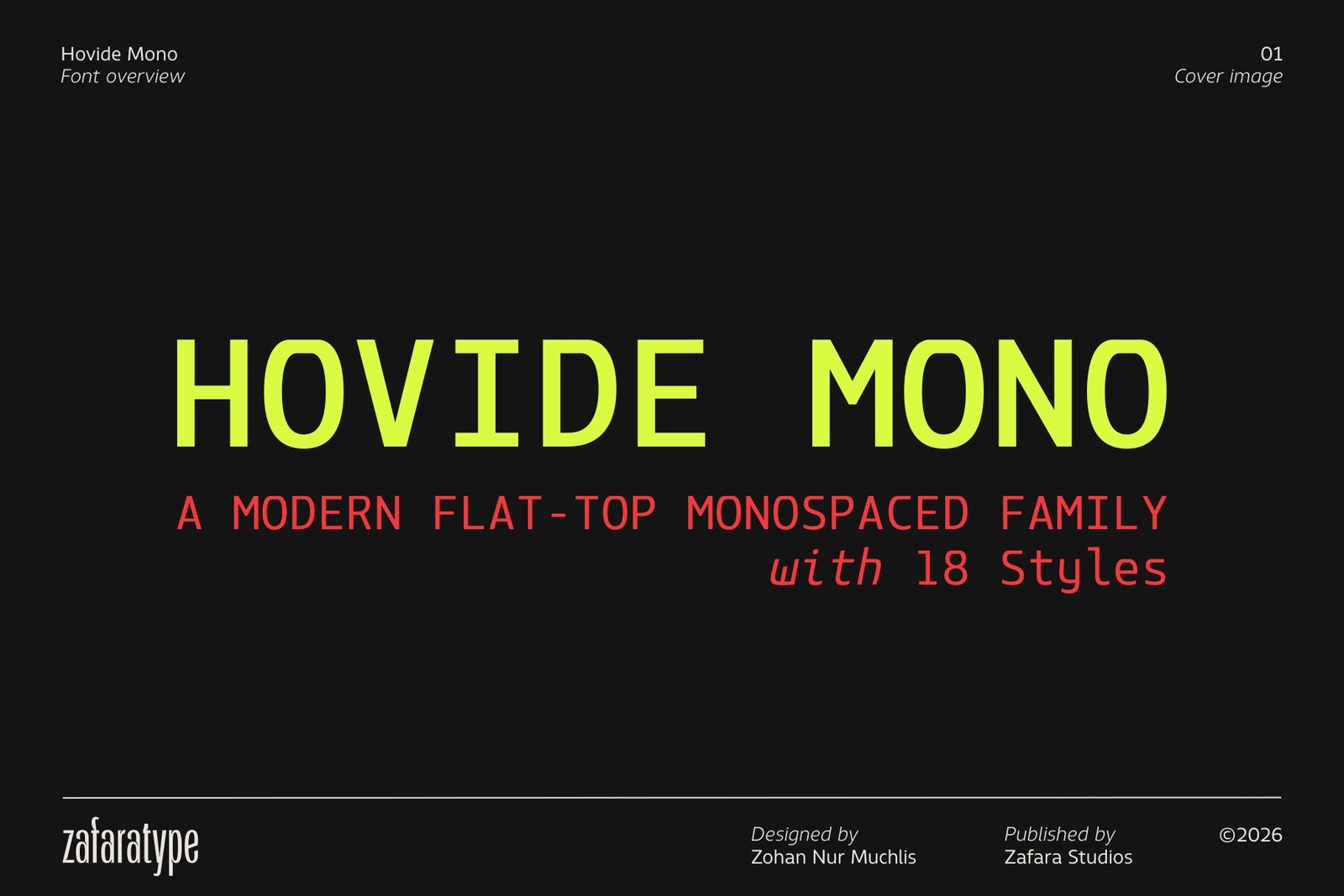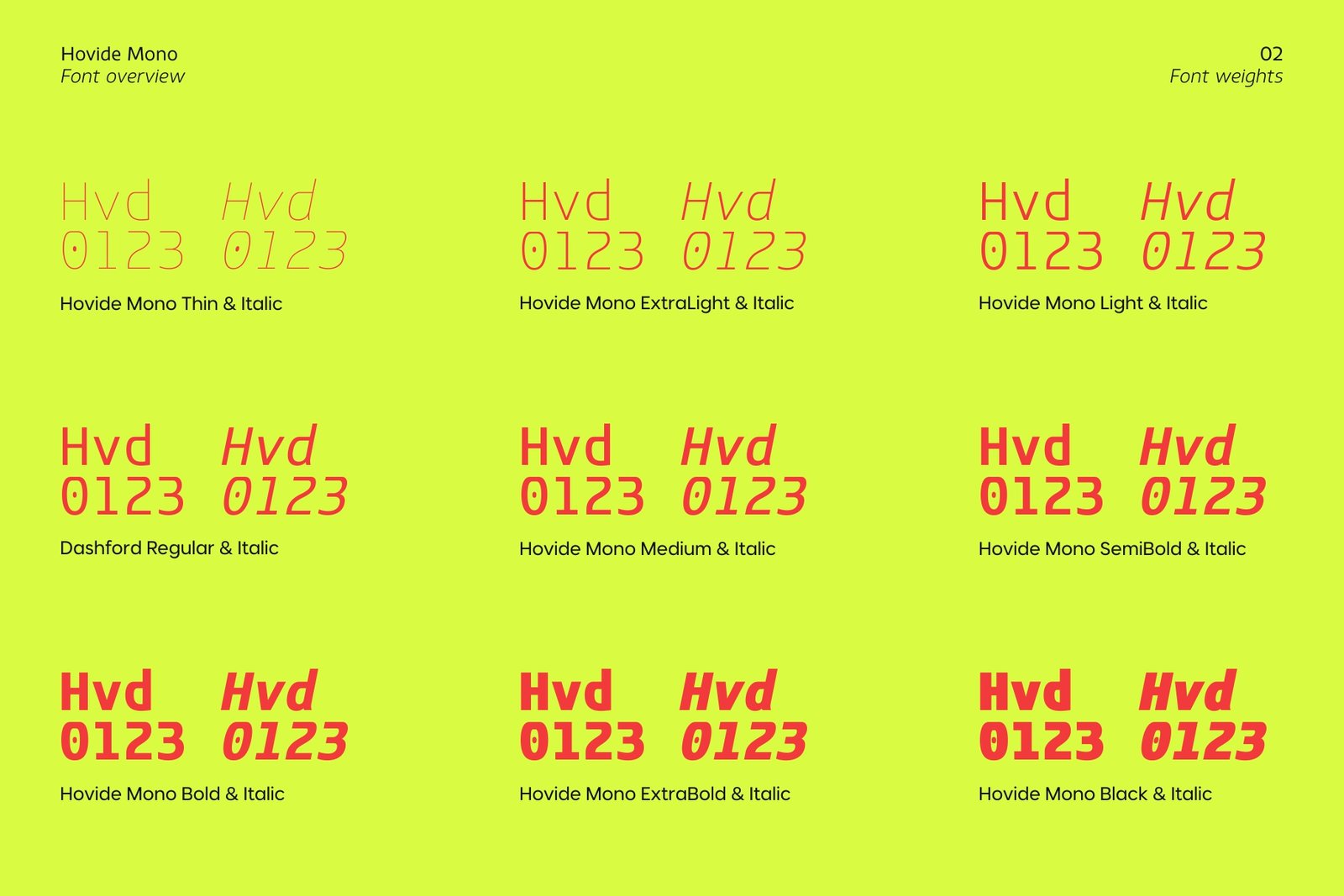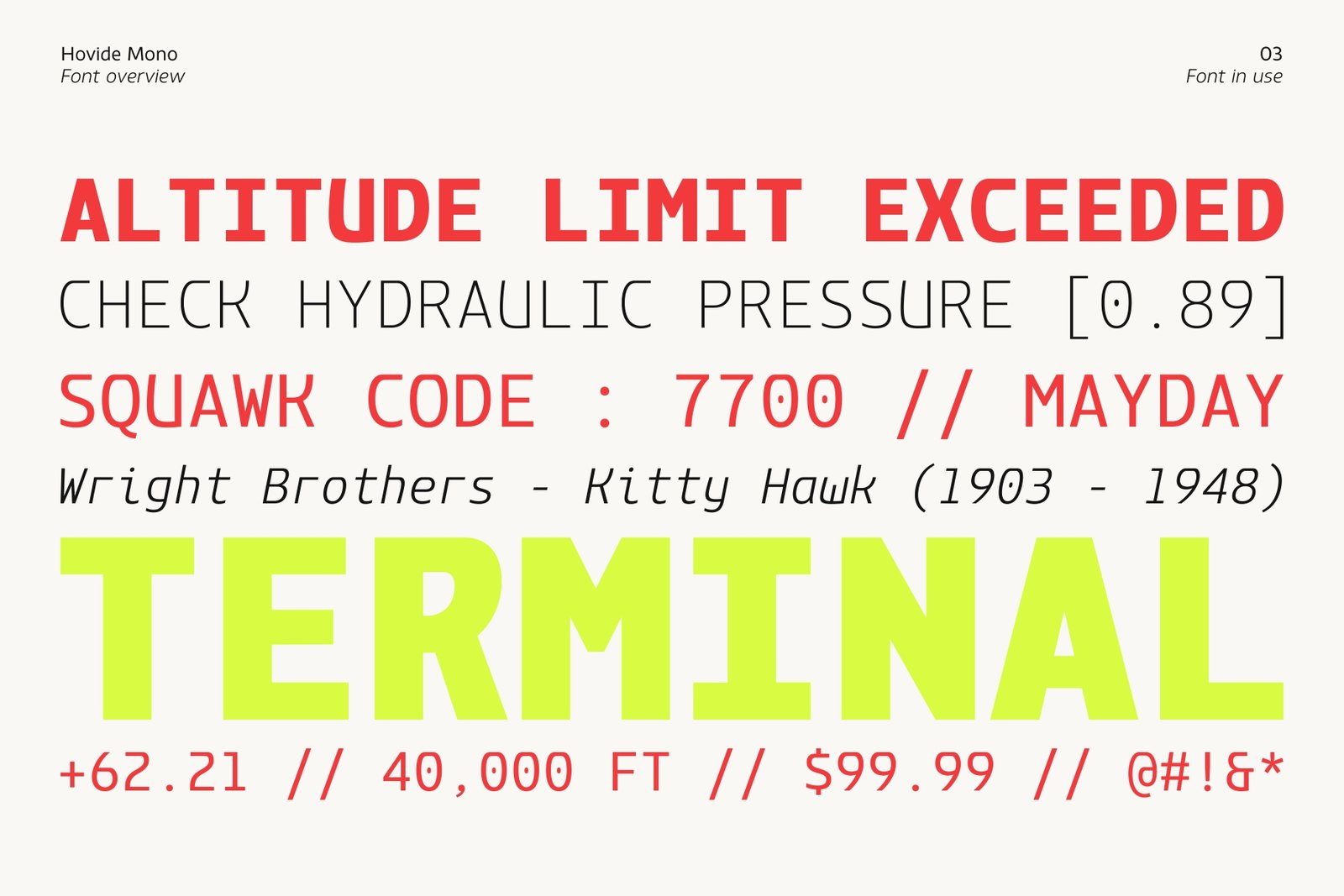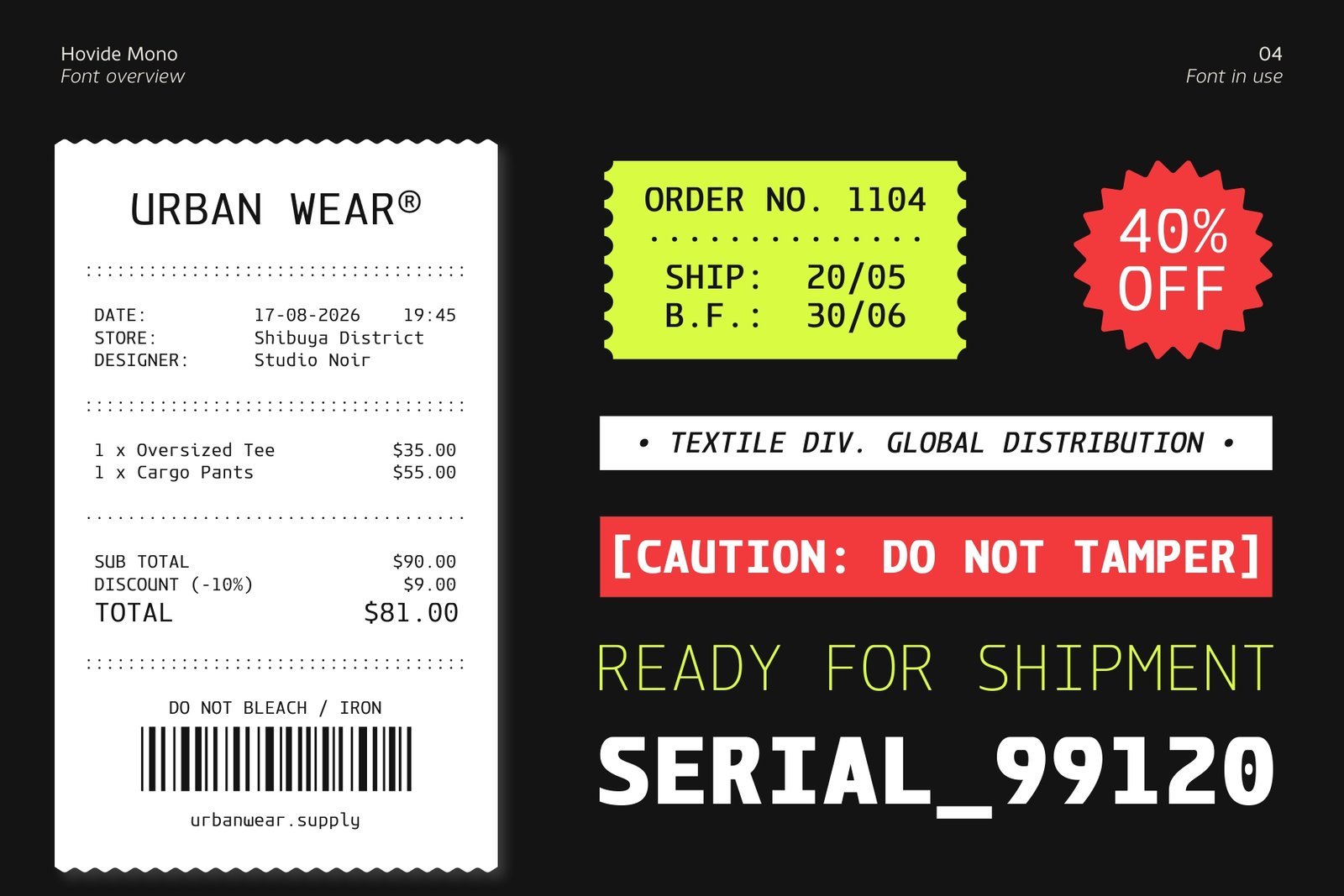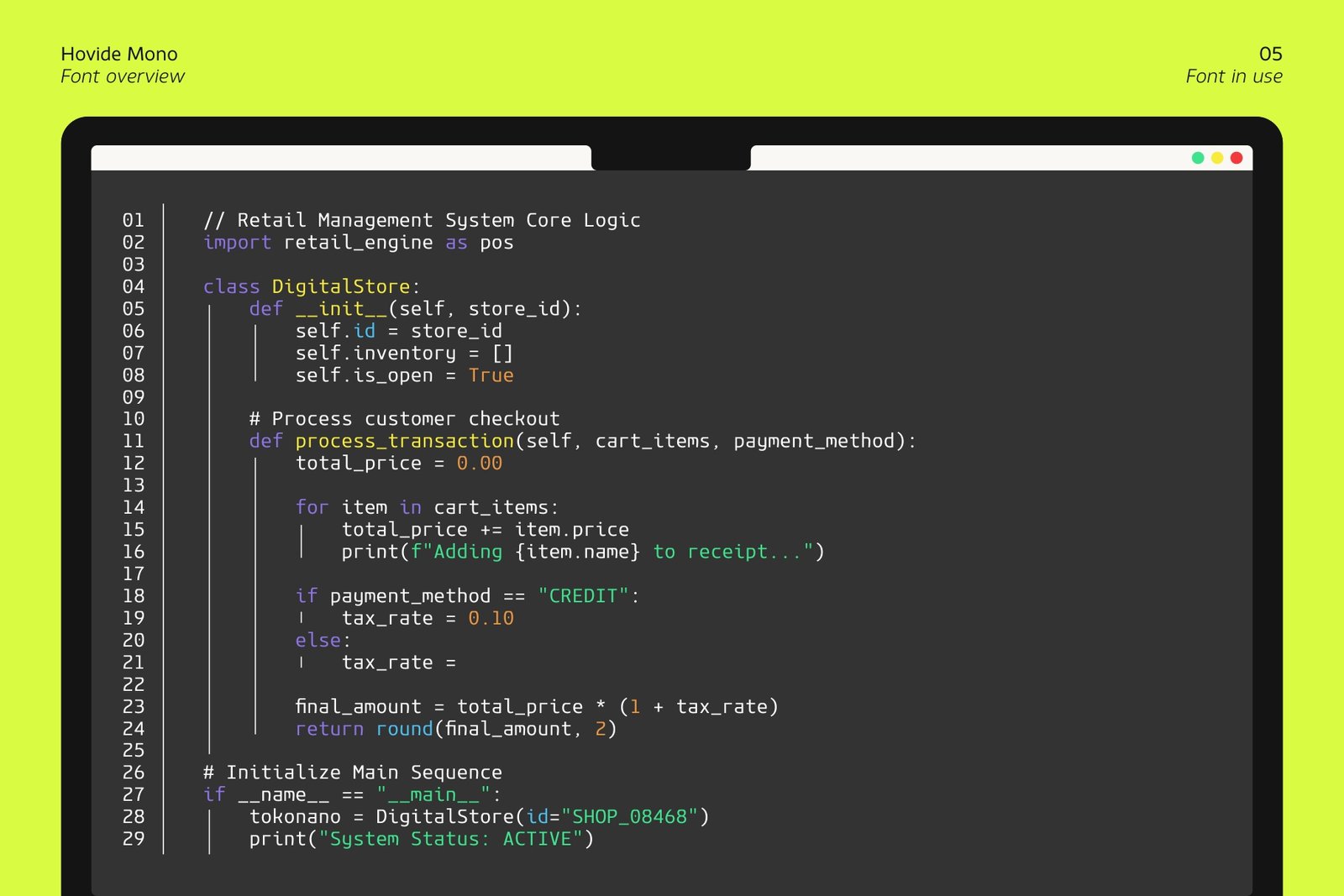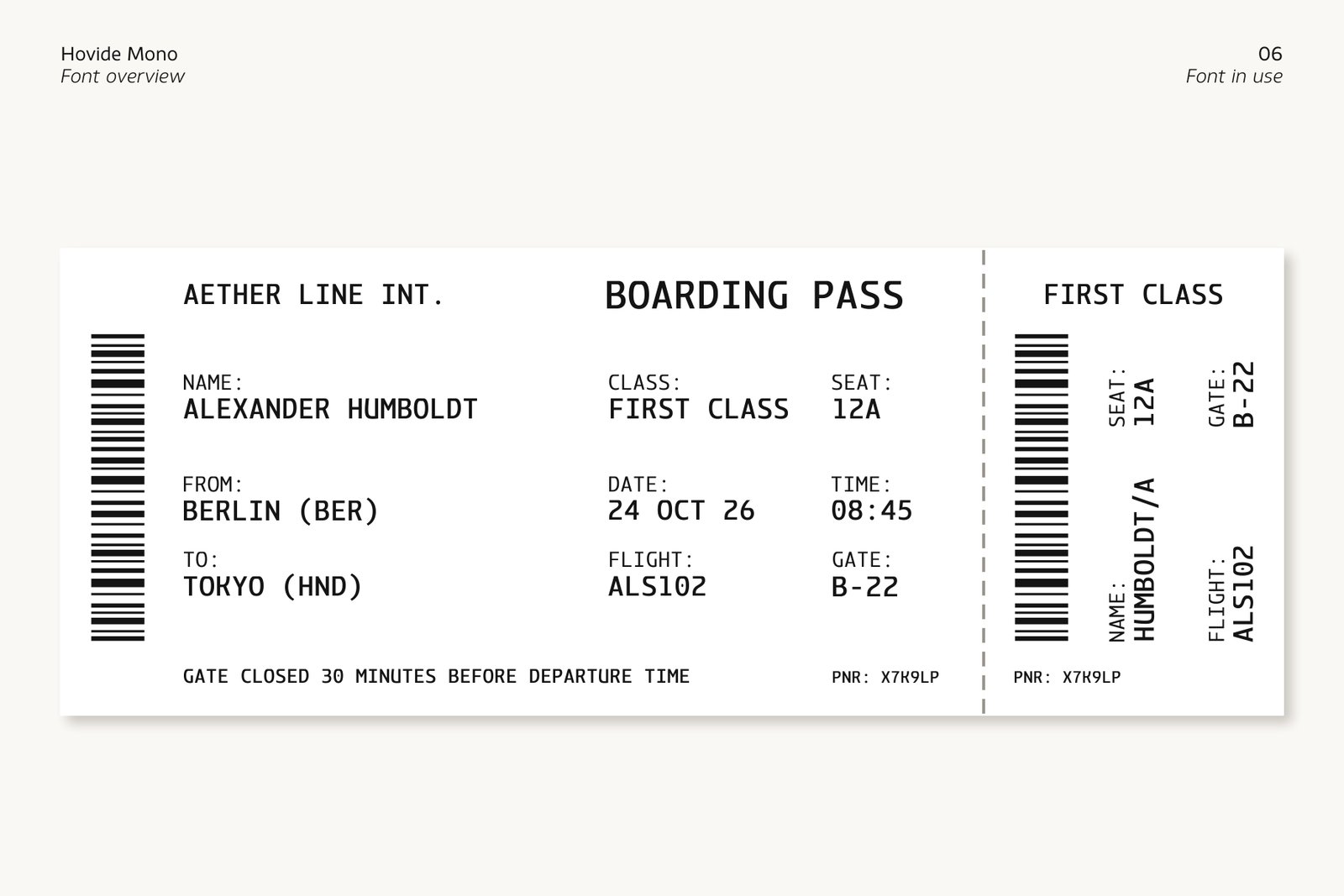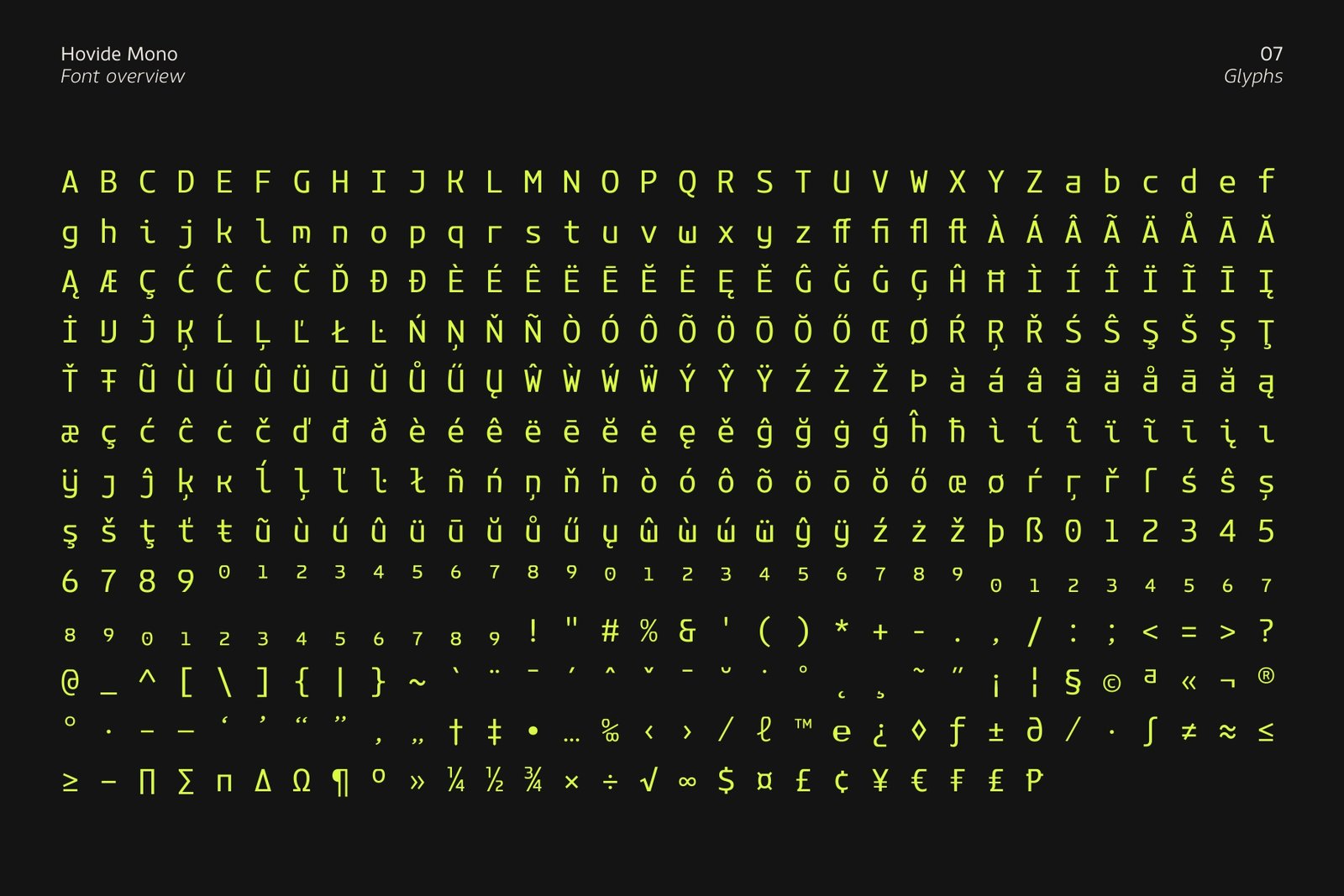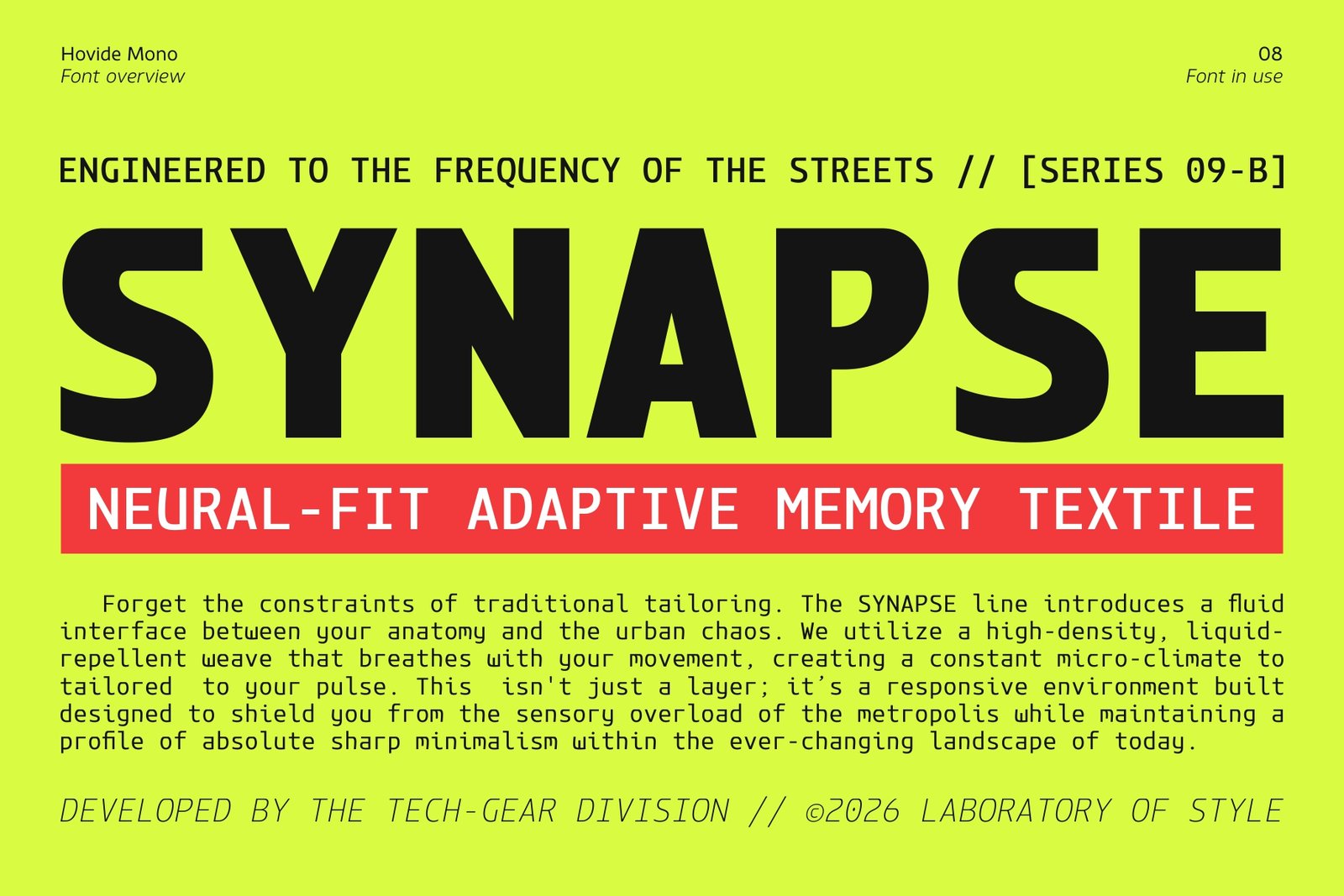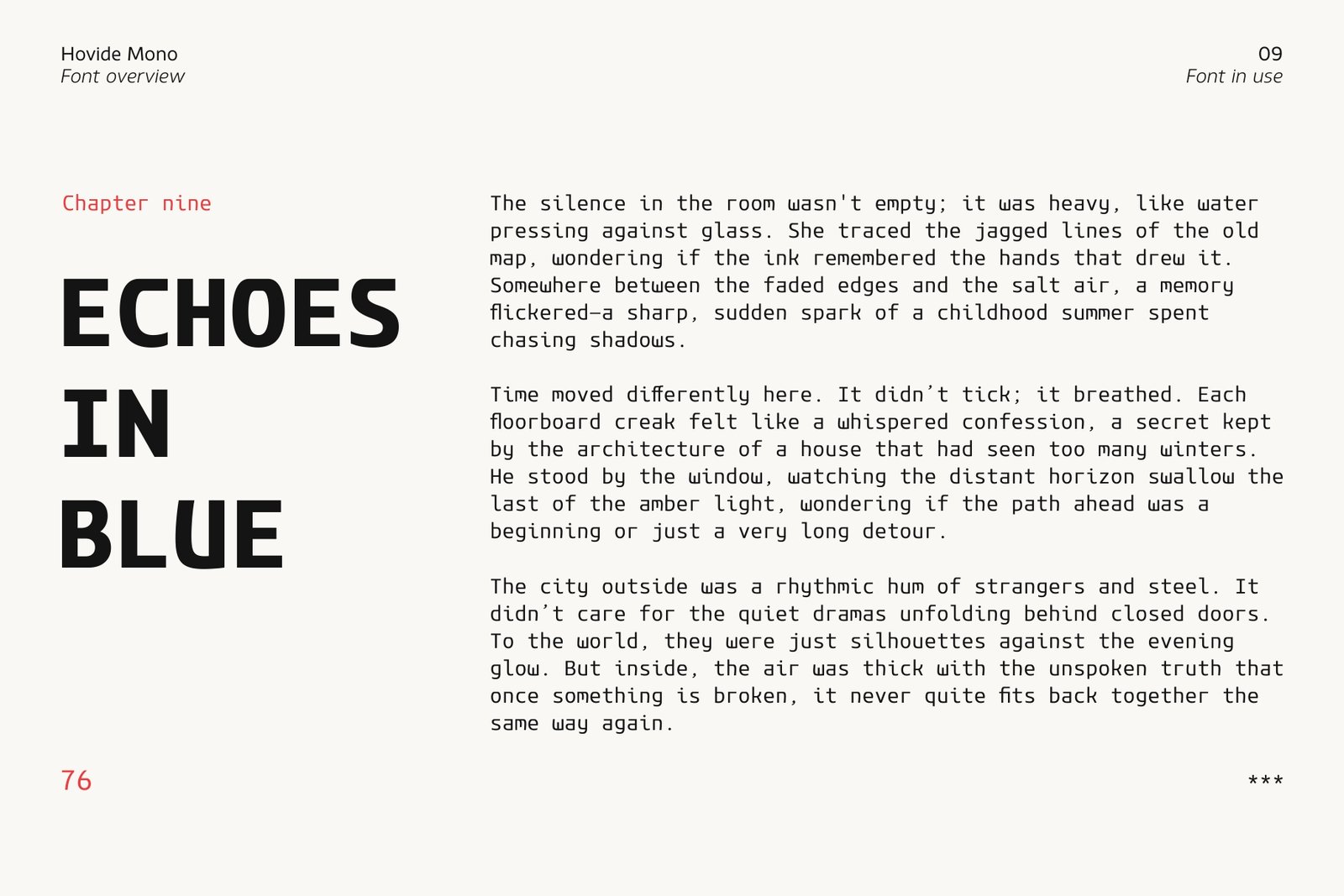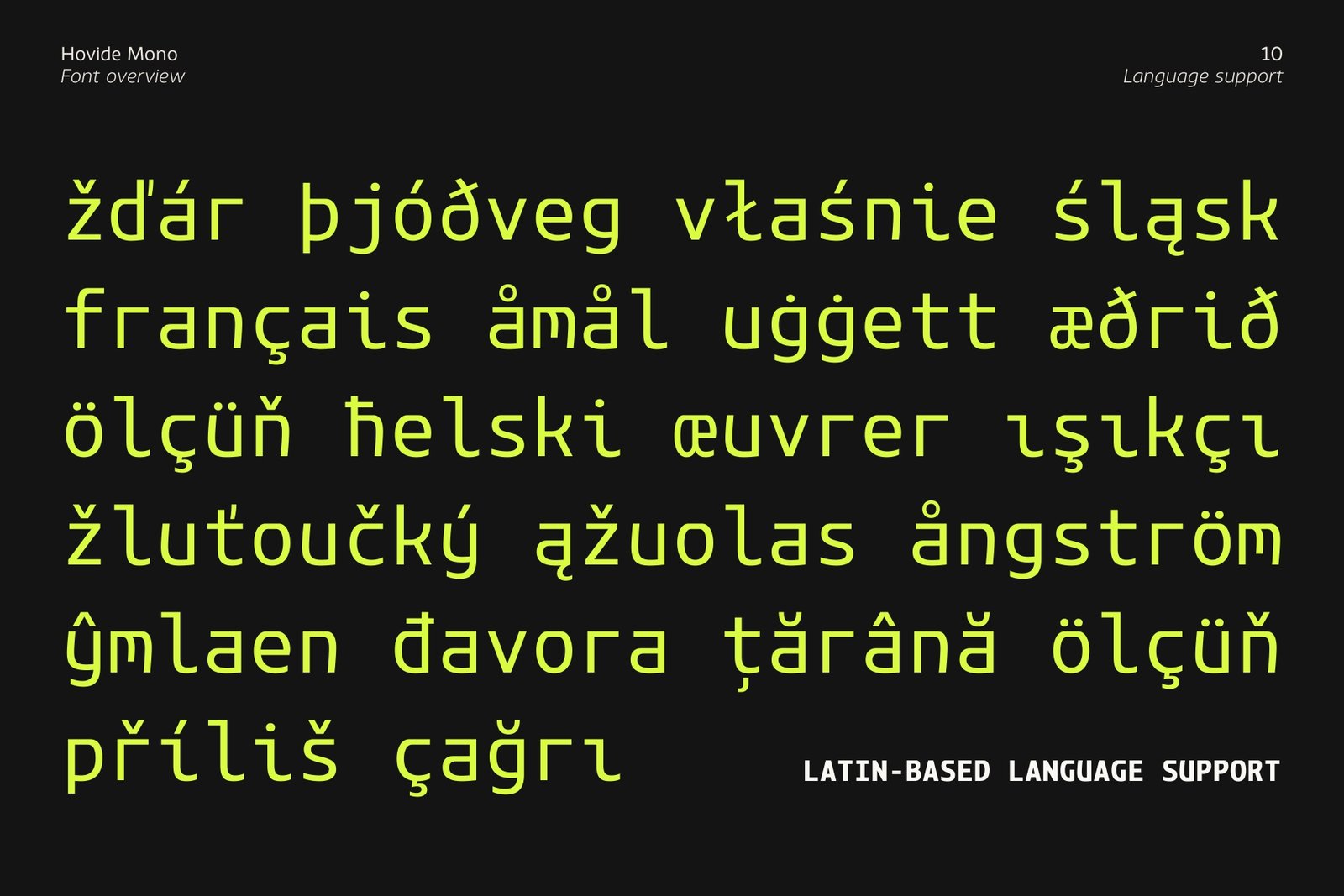
Cover image of Hovide Mono, a modern monospaced font family with a futuristic flat-top design, featuring 18 styles by Zafara Studios.
A type specimen sheet showcasing Hovide Mono's font weights on a bright lime green background. It displays red sample text reading "Hvd 0123" in various thicknesses from Thin, Light, Medium, Bold, to Black, alongside their corresponding Italic styles.
An aviation or technical dashboard UI mockup using the Hovide Mono font. Red and black alert texts like "ALTITUDE LIMIT EXCEEDED" and "SQUAWK CODE : 7700 // MAYDAY" are set alongside a massive neon lime green "TERMINAL" text over an off-white background.
Modern retail graphics showcasing the Hovide Mono font on a crisp white shopping receipt for "URBAN WEAR", a vibrant yellow shipping tag, a red "40% OFF" starburst badge, and a bold red warning label stating "[CAUTION: DO NOT TAMPER]" over a black backdrop.
A laptop screen displaying a dark mode text editor with multi-colored Python syntax code titled "Retail Management System Core Logic". The entire code layout utilizes the clean and structured Hovide Mono monospaced font.
A minimalist white boarding pass ticket for "AETHER LINE INT." flight from Berlin to Tokyo, featuring passengers' details, barcodes, seat numbers, and gates cleanly laid out using the Hovide Mono font family.
A complete overview of Hovide Mono's glyph set set in lime green against a dark background, revealing hundreds of characters including uppercase, lowercase, punctuation, numbers, math symbols, and accented characters.
A high-impact techwear poster graphic on a bright neon lime green background. It shows the massive black title word "SYNAPSE", a bold red text box reading "NEURAL-FIT ADAPTIVE MEMORY TEXTILE", and a block of text detailed in the Hovide Mono font.
A minimalist book layout or literary page on off-white paper. The left page states "ECHOES IN BLUE" in giant capital letters, while the right page features long narrative prose paragraphs typeset entirely in the Hovide Mono typeface.
Text in lime green against a black background showing accented European words like "français", "åmål", "helski", and "žluťoučký" to highlight the font's multilingual Latin-based language support.
An expressive typography collage using Hovide Mono on a bright lime green canvas. Random fashion words like "loose.", "DENIM", "STITCH", "seam", "urbanWEARs*", and "^COTTONsoft" are mixed using contrasting black and red colors, combining normal and italicized weights.
An OpenType feature guide for Hovide Mono on an off-white background, exhibiting examples in red text for features like proportional figures, ordinals, case sensitive punctuation, standard ligatures, superscripts, subscripts, fractions, numerators, and denominators.
Hovide Mono
Hovide Mono blends technical geometry with a sharp, futuristic flat-top construction. A versatile modern monospaced font family of 18 styles (Weights & Italics) built for interface design, coding layouts, and contemporary branding that demand a strong industrial-modern personality.